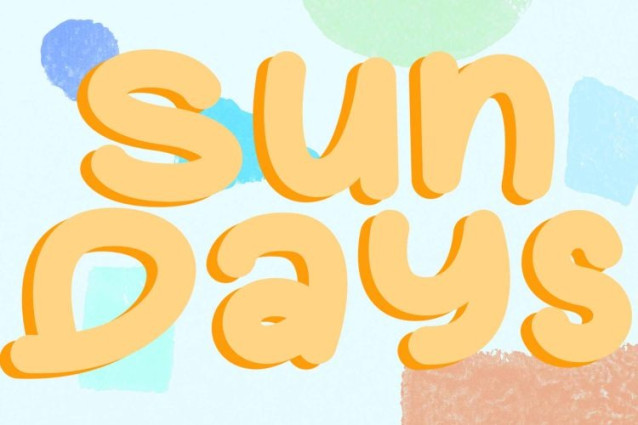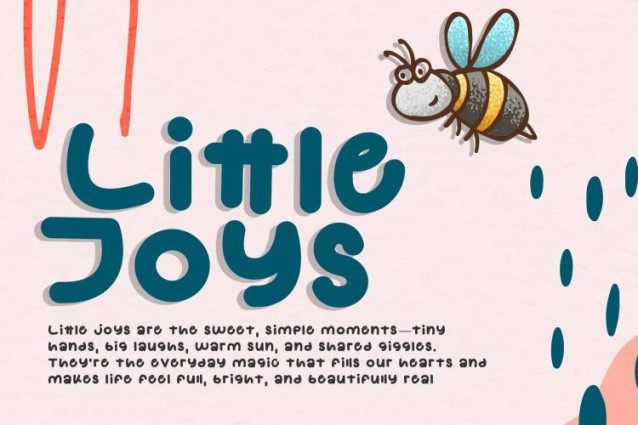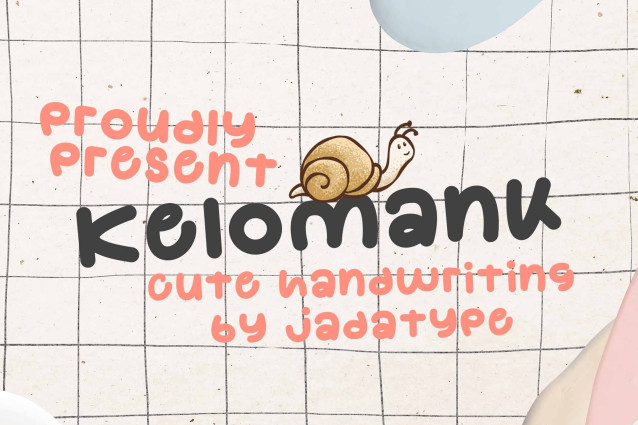
Kelomank Playful Font
Kelomank Playful Font is a bold display font with a playful style. suitable for social media, branding, craft, products, comic book, and so on. contains standard English letters, numbers, punctuation, and several accents that support multilingualism.